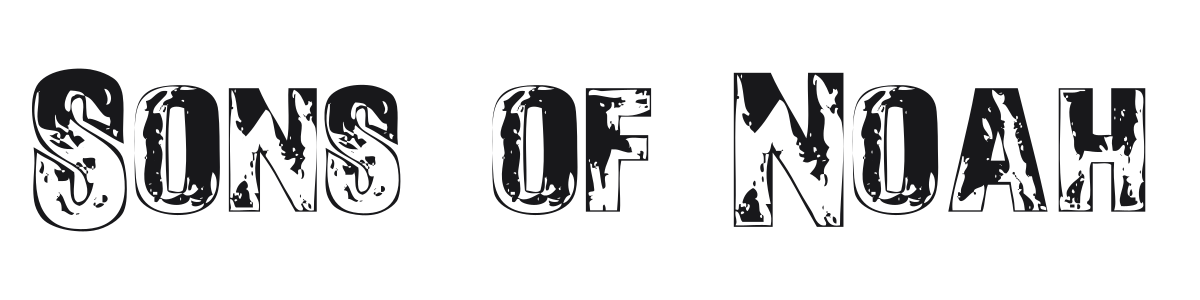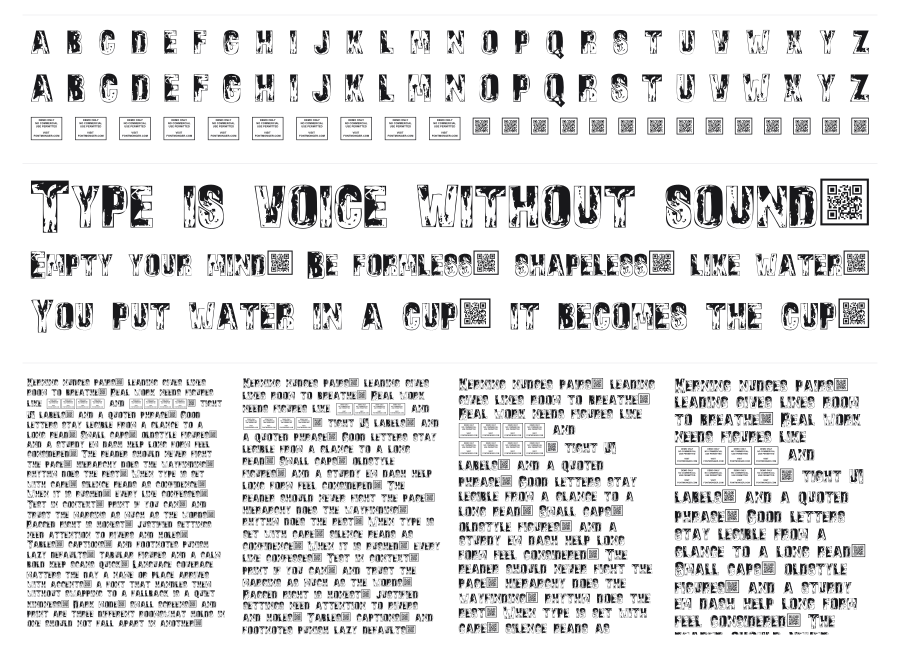
Sons of Noah
Sons of Noah is a heavily distressed display font built on a bold, blocky sans-serif frame that is almost completely overtaken by grime, erosion, and splatter textures. The destruction feels dense and intentional, giving each character a weathered, menacing weight that reads clearly at large sizes. It lives in poster work, album covers, horror titles, and anywhere the design calls for raw visual aggression.